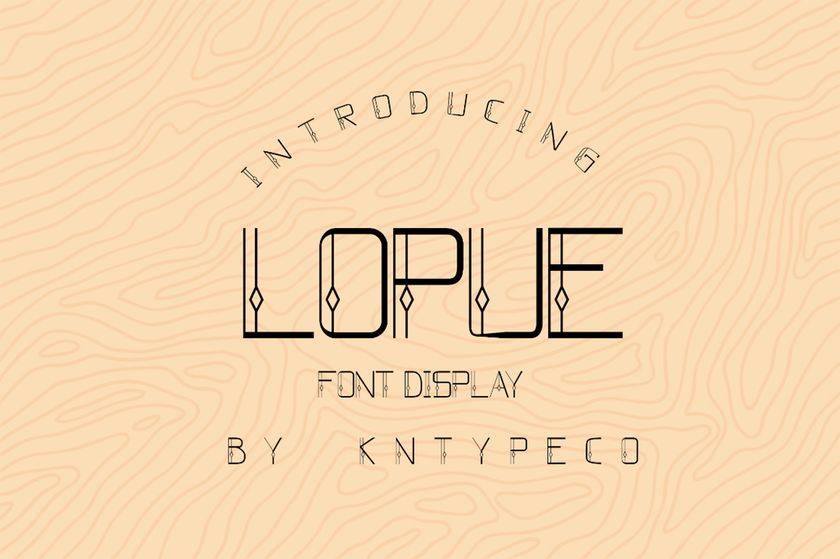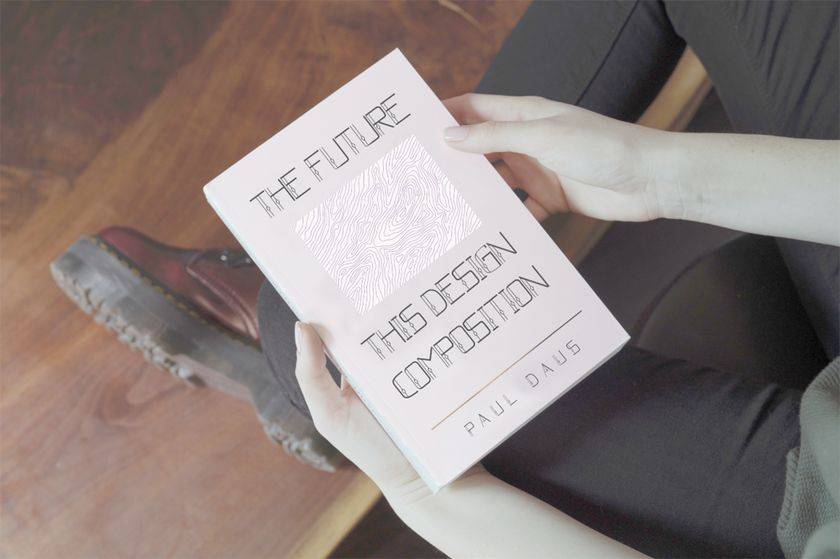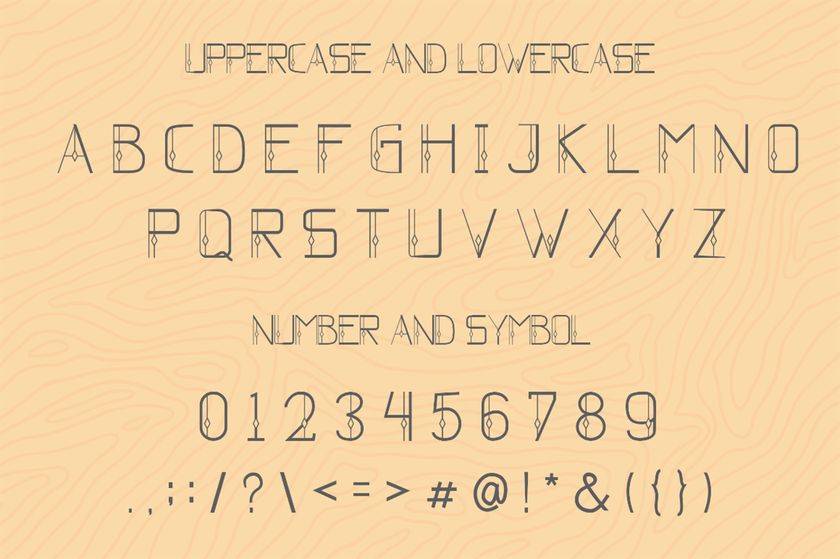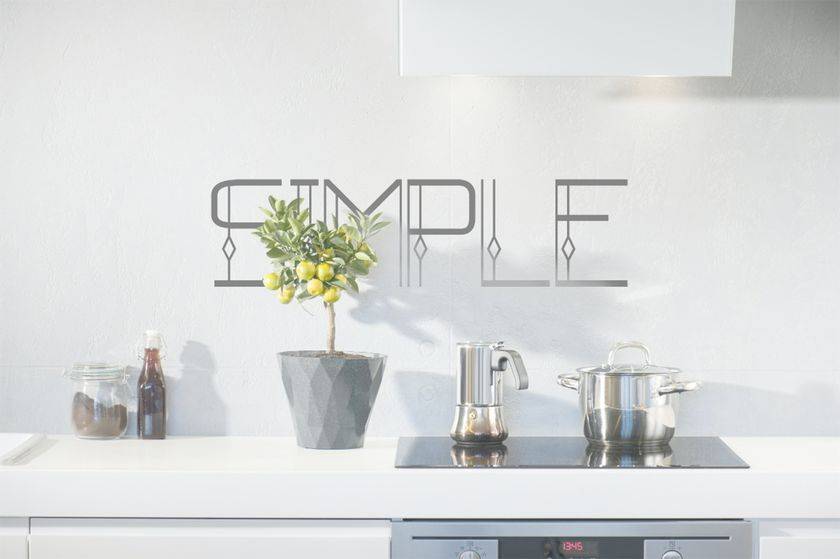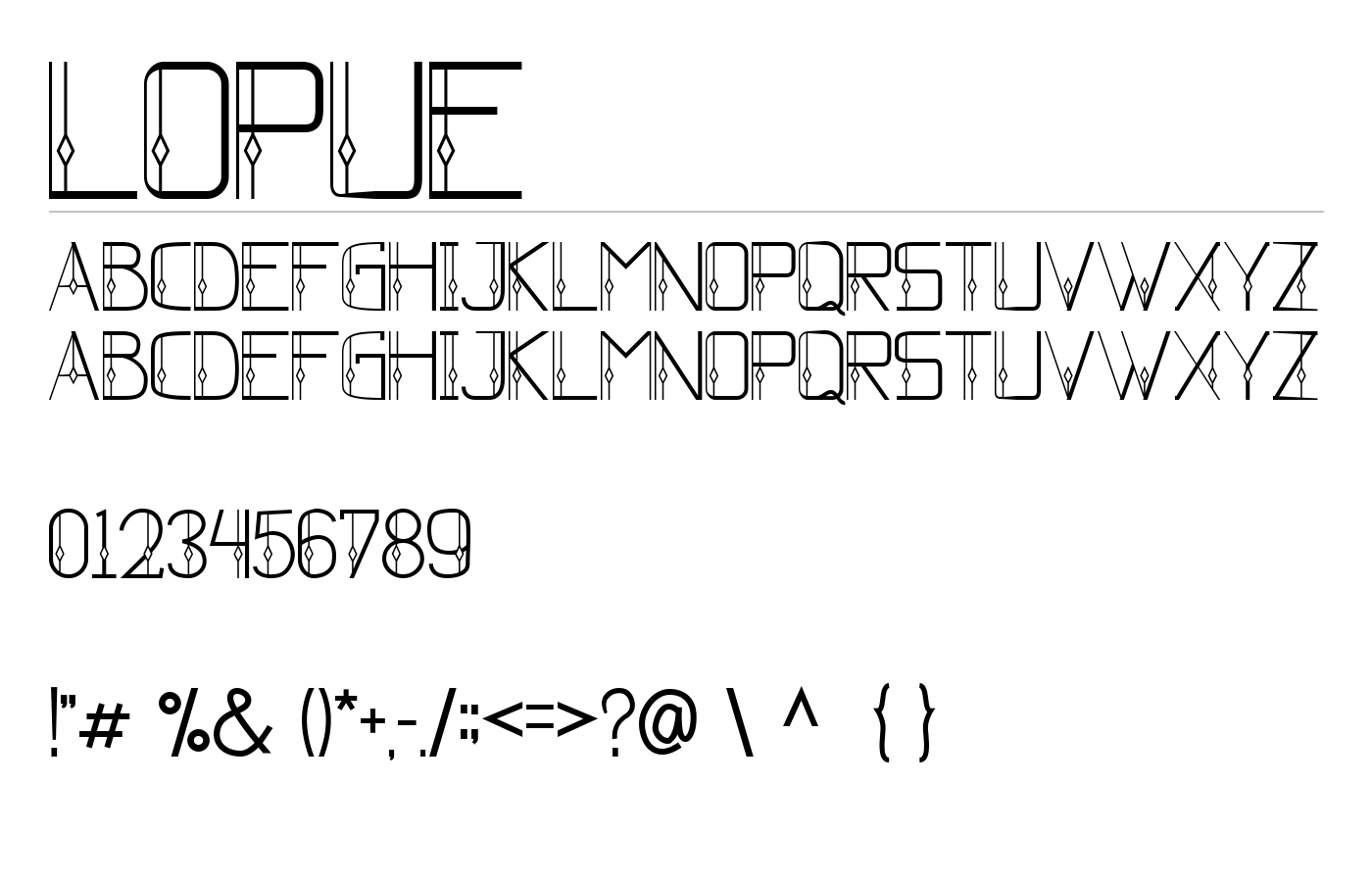
Lopue is a sleek, modern sans serif font with an ultra-light weight and narrow width, featuring distinctive geometric diamond-shaped details integrated into the strokes. Its high x-height and delicate lines give it a refined, elegant feel ideal for stylish branding, fashion headlines, or editorial use where a contemporary and sophisticated appearance is desired. The font's unique ornamental touches make it perfect for designs seeking a minimalist yet decorative aesthetic.
Lopue Font